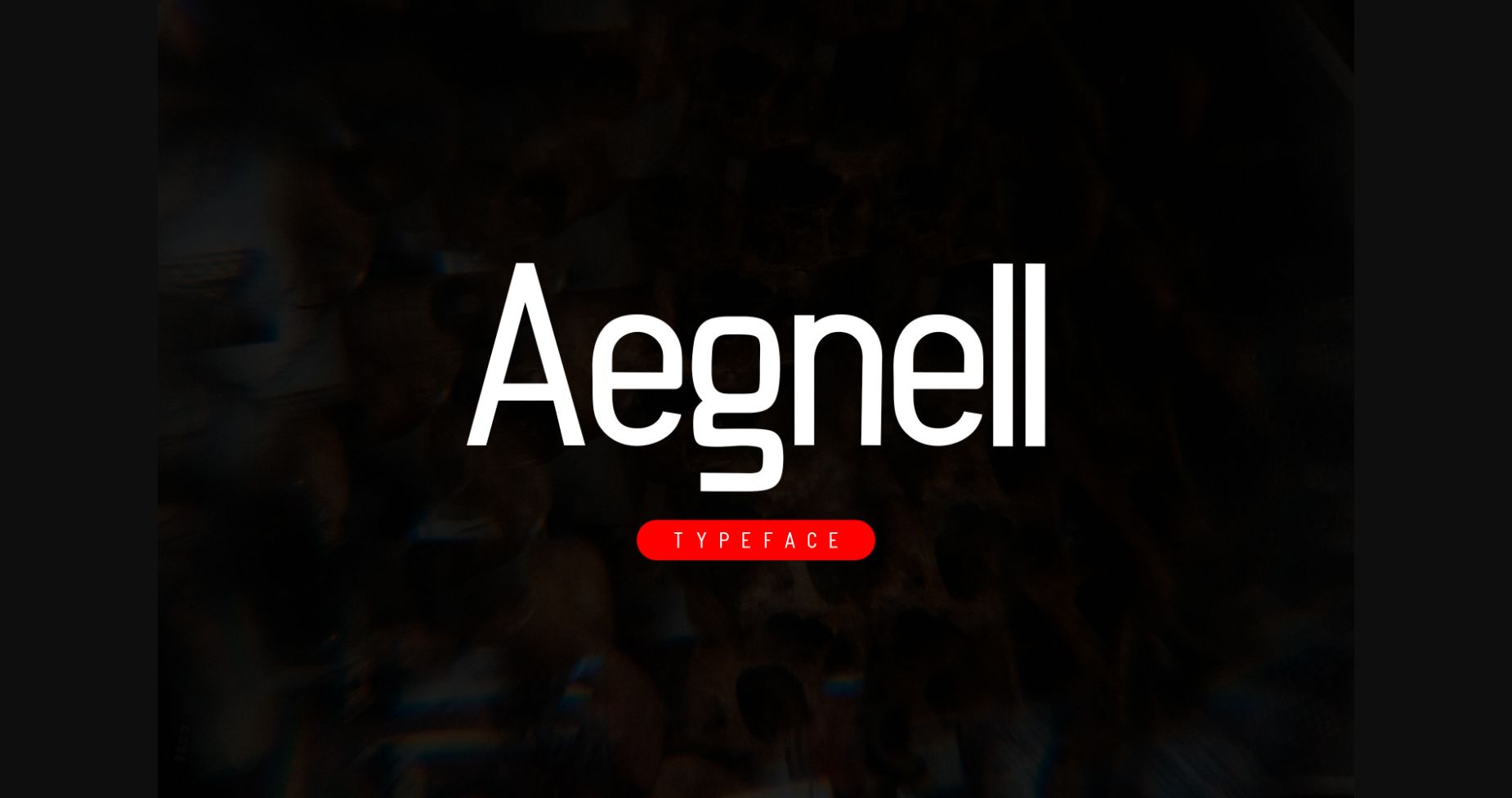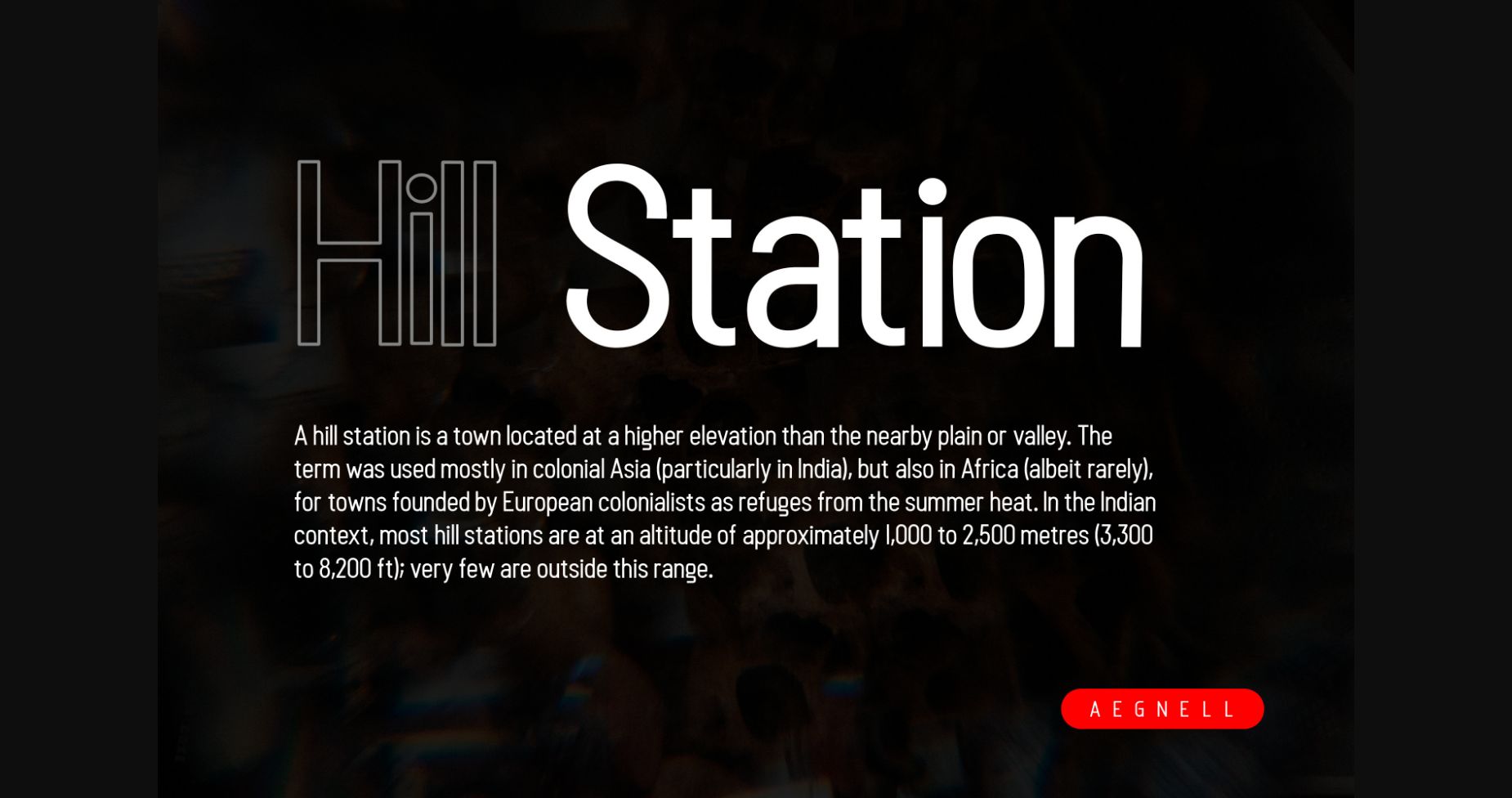
About Aegnell Font
Aegnell is a modern and cool lettered sans serif font. It will elevate a wide range of crafting ideas, from cards, to branding, labels and much more.